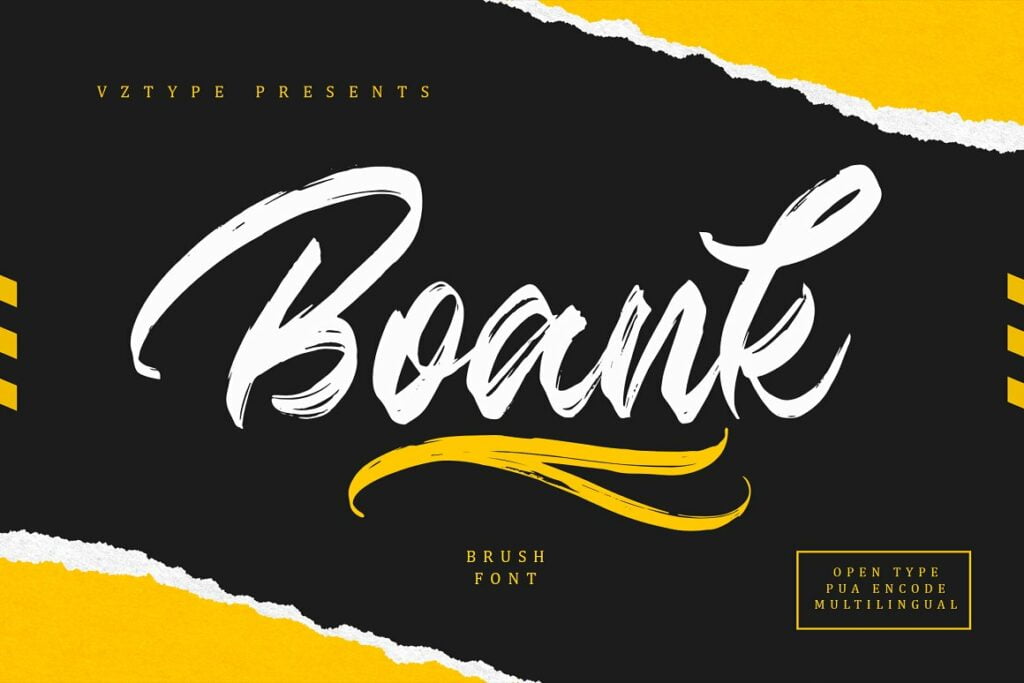
Boank Font
Boank Brush Font you can applied to logos, product, display, clothing, quotes and many more. You can applied to all typography with mix and match pairs of letters to fit your own designs.
Boank Script Brush Font